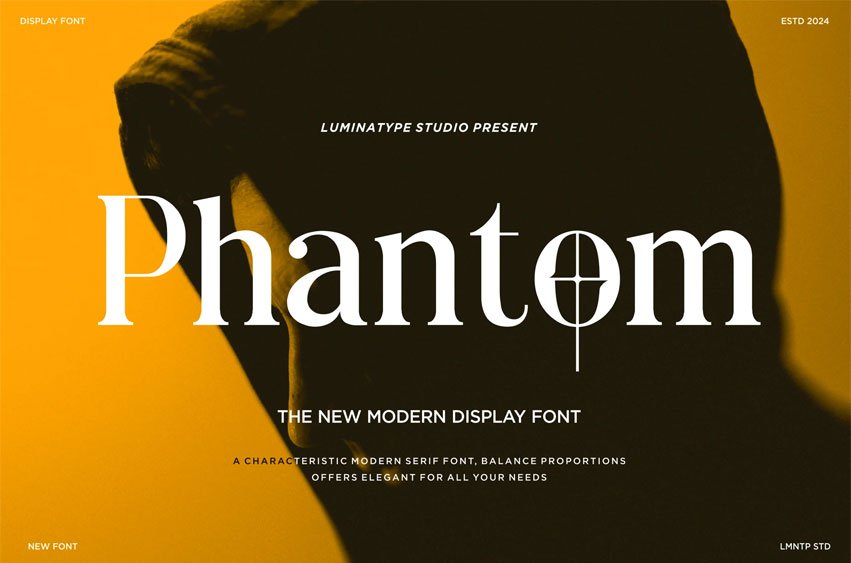
LT Phantom Font is an Decorative display serif that comes with two distinct styles Designs By Luminatype Studio – Phantom Regular and Phantom Oblique. This striking typeface was manifested to define and highlight modernity in every letter. Drawing inspiration from the hottest trends in serif typefaces around the globe, PHANTOM flawlessly exhibits a blend of contemporary aesthetics and functionality. Its sleek design and bold strokes can effortlessly transform words into powerful tools of expression. Experience PHANTOM, where typography meets contemporary elegance.
Immerse yourself in the captivating allure of the Phantom font. Crafted for a discerning audience, this typeface shines in display contexts, making a bold statement in editorial projects, capturing eyes on magazine headlines, amplifying your logo designs or music album artistry, reinforcing the charisma of apparel branding, and delivering the perfect embellishment to product packaging. With Phantom, it’s more than just writing—it’s about transforming an ordinary background image into a cohesive design quadrant by adorning it with stylish text overlay. Evoke emotion, tell your story, and let Phantom take your design work to new heights.
- Stylistic Alternates & Ligatures